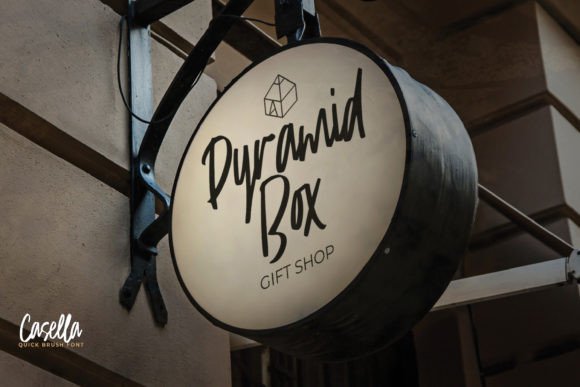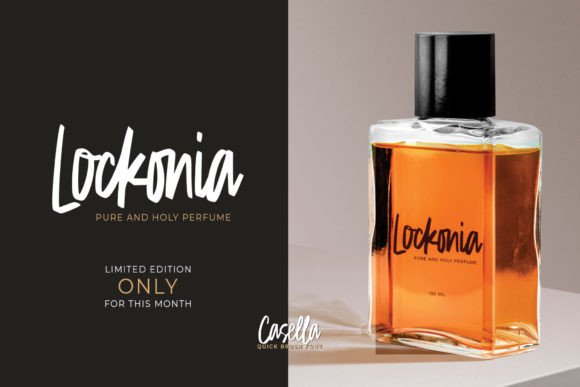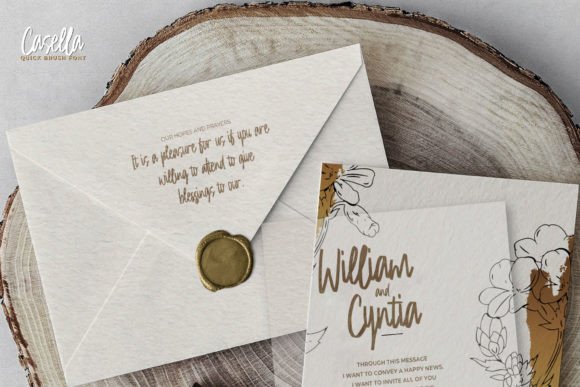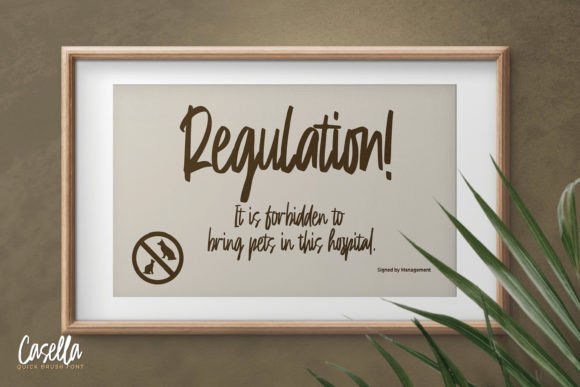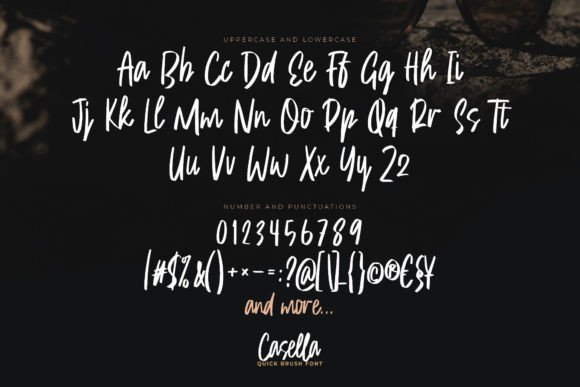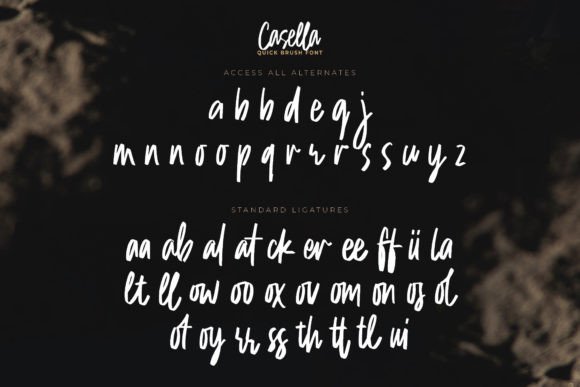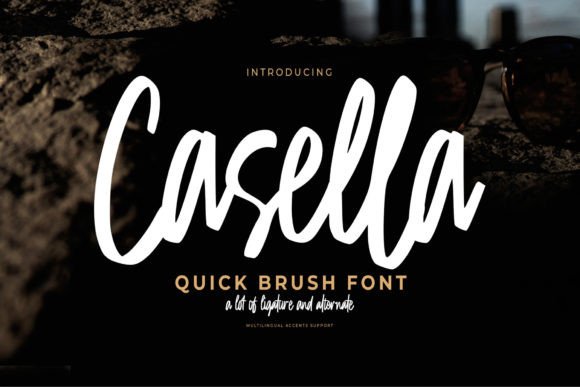
Cassella Font: Adding a Touch of Romance to Your Designs
Cassella is an enchanting handwritten font that has captured the hearts of designers and crafters alike. This versatile script font has a wide spectrum of applications, ranging from greeting cards to headlines, and is guaranteed to add a romantic feel to your next project. In this article, we’ll dive into the world of Cassella Font, exploring its features, uses, and benefits, as well as provide tips on how to make the most of this beautiful font.
What is Cassella Font?
Cassella Font is a modern script font that boasts a whimsical and romantic feel. Its elegant, cursive letters are perfect for adding a touch of sophistication and charm to any design project. The font’s unique and flowing style makes it ideal for creating eye-catching headlines, titles, and quotes, as well as adding a personal touch to invitations, greeting cards, and other stationery.
Key Features of Cassella Font
- Handwritten style: Cassella Font has a beautiful, handwritten look that gives it a personal and organic feel.
- Versatile: This font is suitable for a wide range of design projects, from digital to print.
- Romantic feel: Cassella Font is perfect for creating designs that require a touch of elegance and sophistication.
- Easy to read: Despite its cursive style, Cassella Font is surprisingly easy to read, making it perfect for body text and headlines.
Uses of Cassella Font
Cassella Font is an incredibly versatile font that can be used in a variety of design projects, including:
- Greeting cards: Add a personal touch to your greeting cards with Cassella Font’s elegant and romantic style.
- Invitations: Create beautiful and sophisticated invitations for weddings, parties, and other special events.
- Headlines and titles: Use Cassella Font to create eye-catching headlines and titles for your blog posts, articles, and social media graphics.
- Logos and branding: Cassella Font can be used to create unique and memorable logos and branding materials.
- Stationery: Add a touch of elegance to your stationery, including notebooks, journals, and planners.
Benefits of Using Cassella Font
So, why should you choose Cassella Font for your next design project? Here are just a few benefits:
- Unique and distinctive: Cassella Font is a one-of-a-kind font that will help your designs stand out from the crowd.
- Easy to use: This font is surprisingly easy to use, even for those with limited design experience.
- Customizable: Cassella Font can be customized to suit your design needs, including adjusting the size, color, and style.
Tips for Using Cassella Font
To get the most out of Cassella Font, here are a few tips:
- Use it sparingly: Cassella Font is a beautiful font, but it can be overwhelming if used too much. Use it sparingly to create emphasis and add visual interest.
- Pair it with other fonts: Cassella Font pairs well with other fonts, including sans-serif and serif fonts. Experiment with different combinations to find the perfect look.
- Adjust the size and color: Customize Cassella Font to suit your design needs by adjusting the size and color.
- Experiment with different styles: Cassella Font comes in a range of styles, including regular, italic, and bold. Experiment with different styles to find the one that works best for your design.
Cassella Font is a beautiful and versatile script font that is perfect for adding a touch of romance and elegance to your design projects. With its unique and flowing style, this font is sure to capture the hearts of designers and crafters alike. Whether you’re creating greeting cards, invitations, or headlines, Cassella Font is a great choice. So why not give it a try and see the magic for yourself?